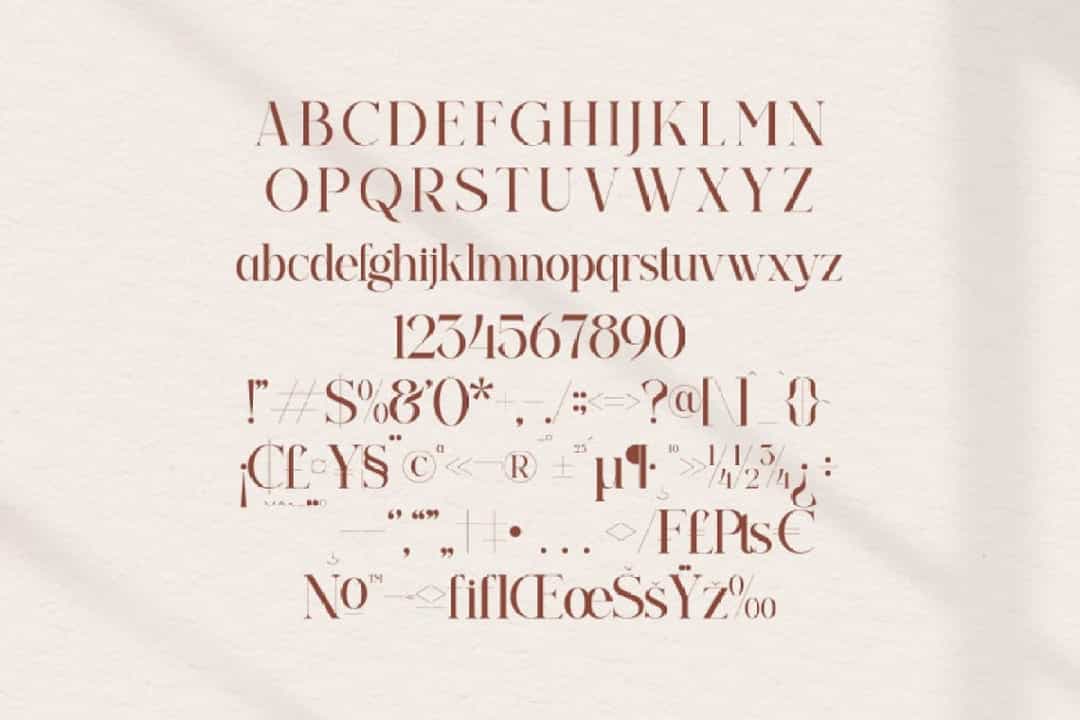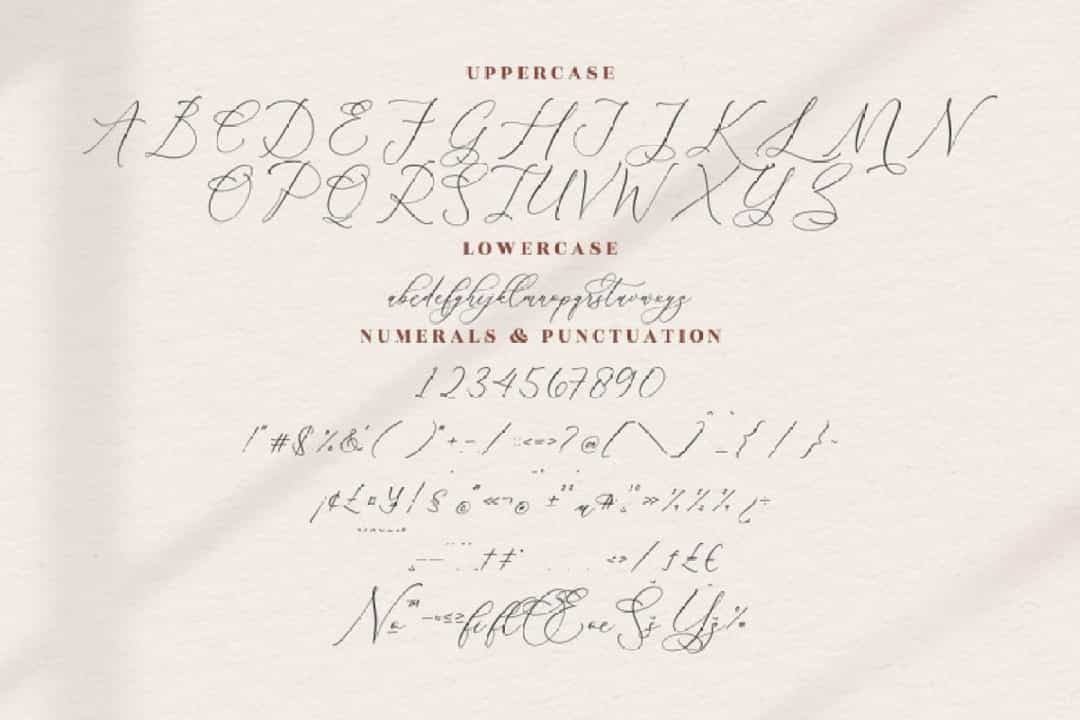
Relatta Saidnolia can be described as an incredible typeface duo (script and serif), ideal for creating luxurious designs. As it is PUA encoded, all its characters and ligatures can be quickly and easily accessed!